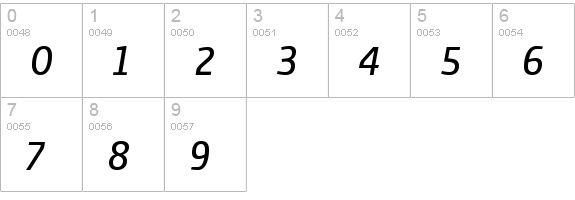
Vinkel Regular Italic Font Details
Vinkel Regular Italic is the standard, neutral, italic variant in the Vinkel typeface family \xE2\x80\x94 well suited to general body text, paragraphs, and standard typographic work.
Vinkel Regular Italic font exudes a sense of modern sophistication and elegance with its sleek and stylish design. The italicized version of this typeface adds a touch of flair and personality to any text, making it perfect for conveying a sense of creativity and innovation. The slanted angles and smooth curves of Vinkel Regular Italic create a dynamic and engaging visual impact that is sure to captivate and inspire. What sets Vinkel Regular Italic apart is not only its striking aesthetics but also its versatility. Whether used in headlines, branding, or body text, this font effortlessly adapts to various design contexts, enhancing the overall look and feel of any project. And the best part? Vinkel Regular Italic is completely free to download at FontsMarket.com. This means you can elevate your designs with this stunning typeface without any cost, making it a valuable addition to your font collection. Embrace the creativity and elegance of Vinkel Regular Italic today and take your designs to the next level.